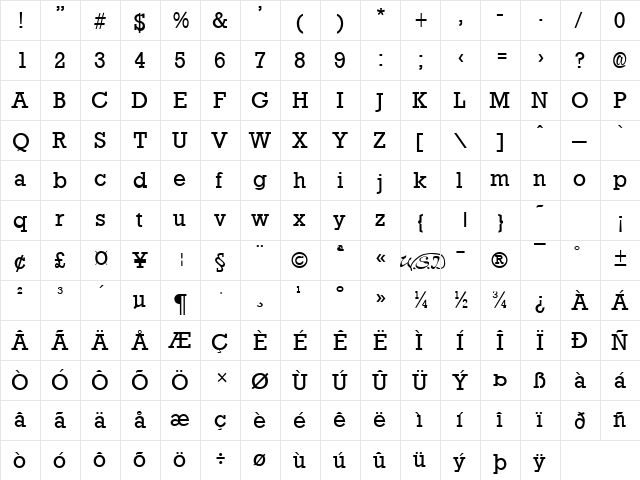
Rockney Regular
Design Context for Rockney Typeface
Rockney is a composed and adaptable typeface that performs quietly and consistently across a wide range of design contexts.